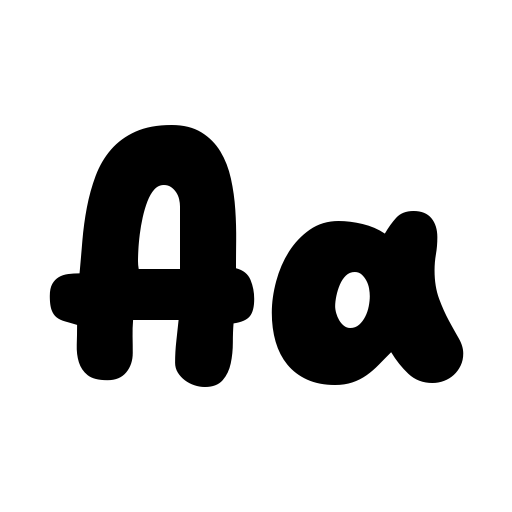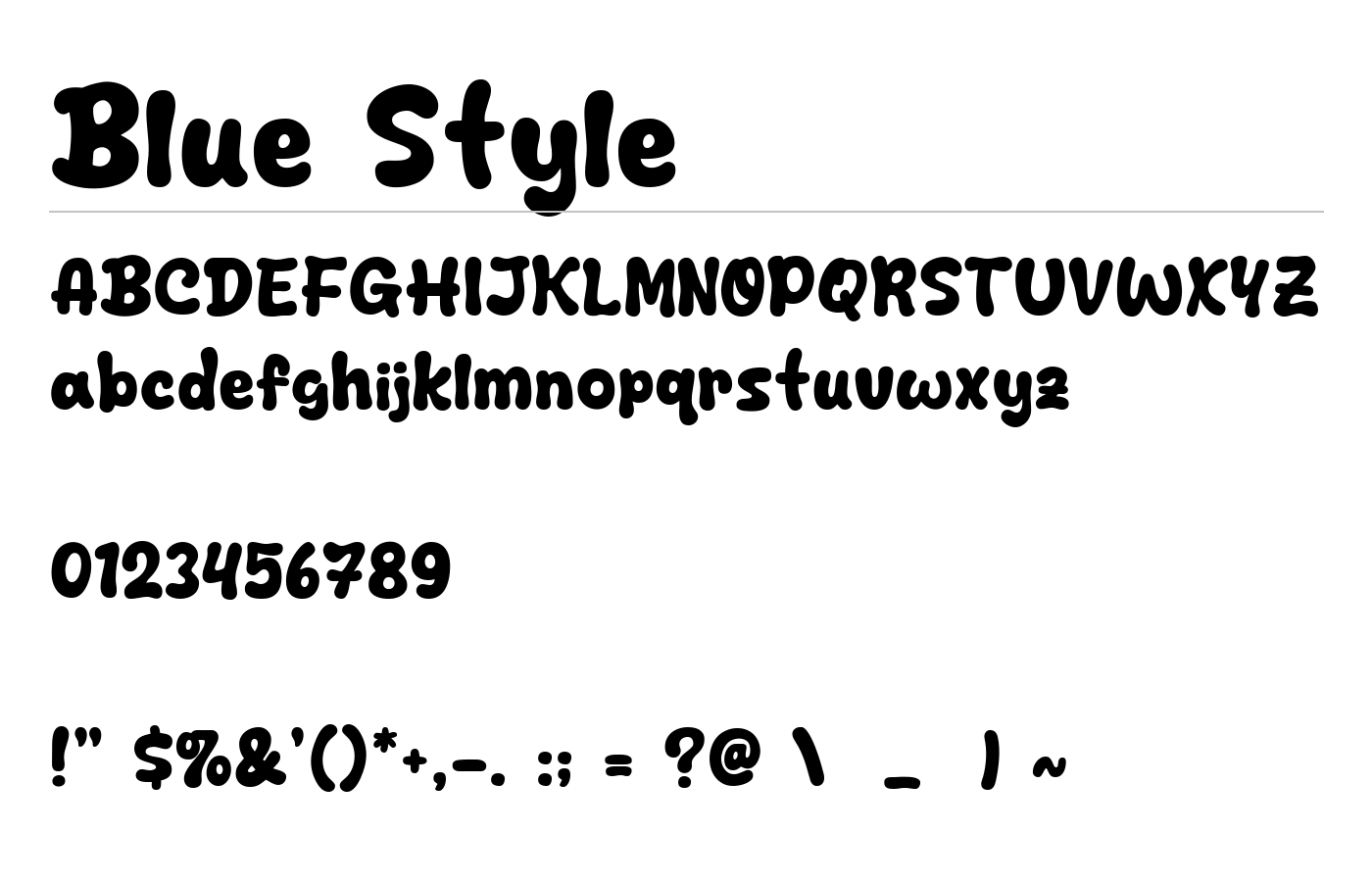
Blue Style is a playful, bold sans serif font with rounded, irregular shapes that give it a friendly, casual feel. Its thick strokes and quirky letterforms make it ideal for fun, informal designs like children’s books, posters, and creative branding that wants to convey warmth and approachability. This font stands out in headlines and display uses where a lively, hand-crafted vibe is needed.
Blue Style Font
About Blue Style Font
| Font family | Blue Style Font |
| Designer | Khurasan & Jalembe |